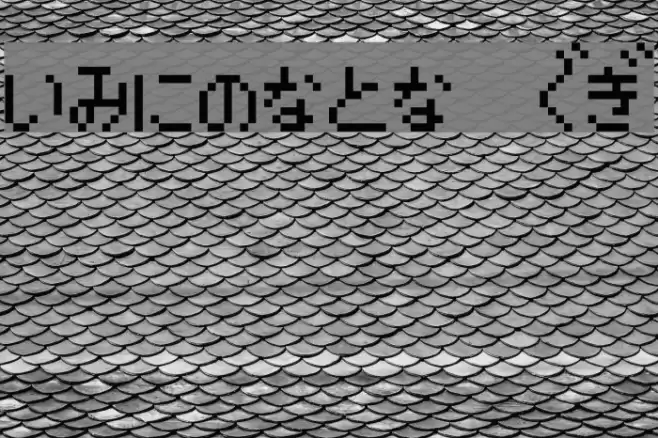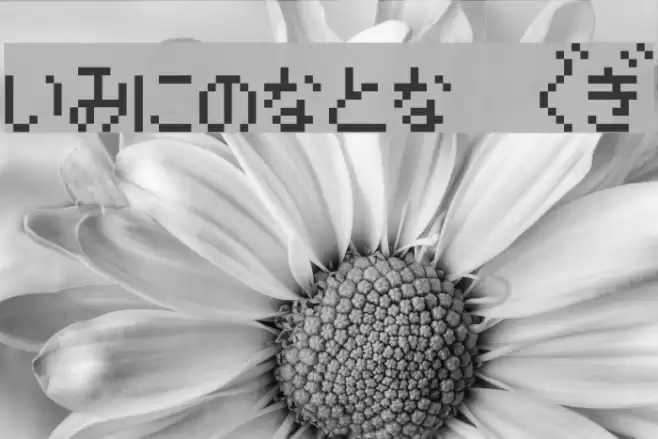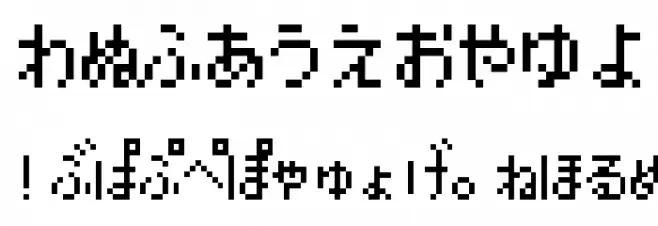
enikusu HG Font
enikusu HG Description
A pixelated, monospaced Japanese font with uniform stroke thickness and square, blocky shapes. The characters are evenly spaced and have a retro, digital appearance reminiscent of early computer or video game text.
Pixelated monospaced Japanese font with a retro digital style from Uncategorized fonts.
- Proposed Projects: Retro video games, pixel art projects, digital displays, nostalgic branding, tech-themed posters.
- Overall Style: Retro, Digital, Pixel Art
- Use Case: Video game text, digital interfaces, nostalgic designs